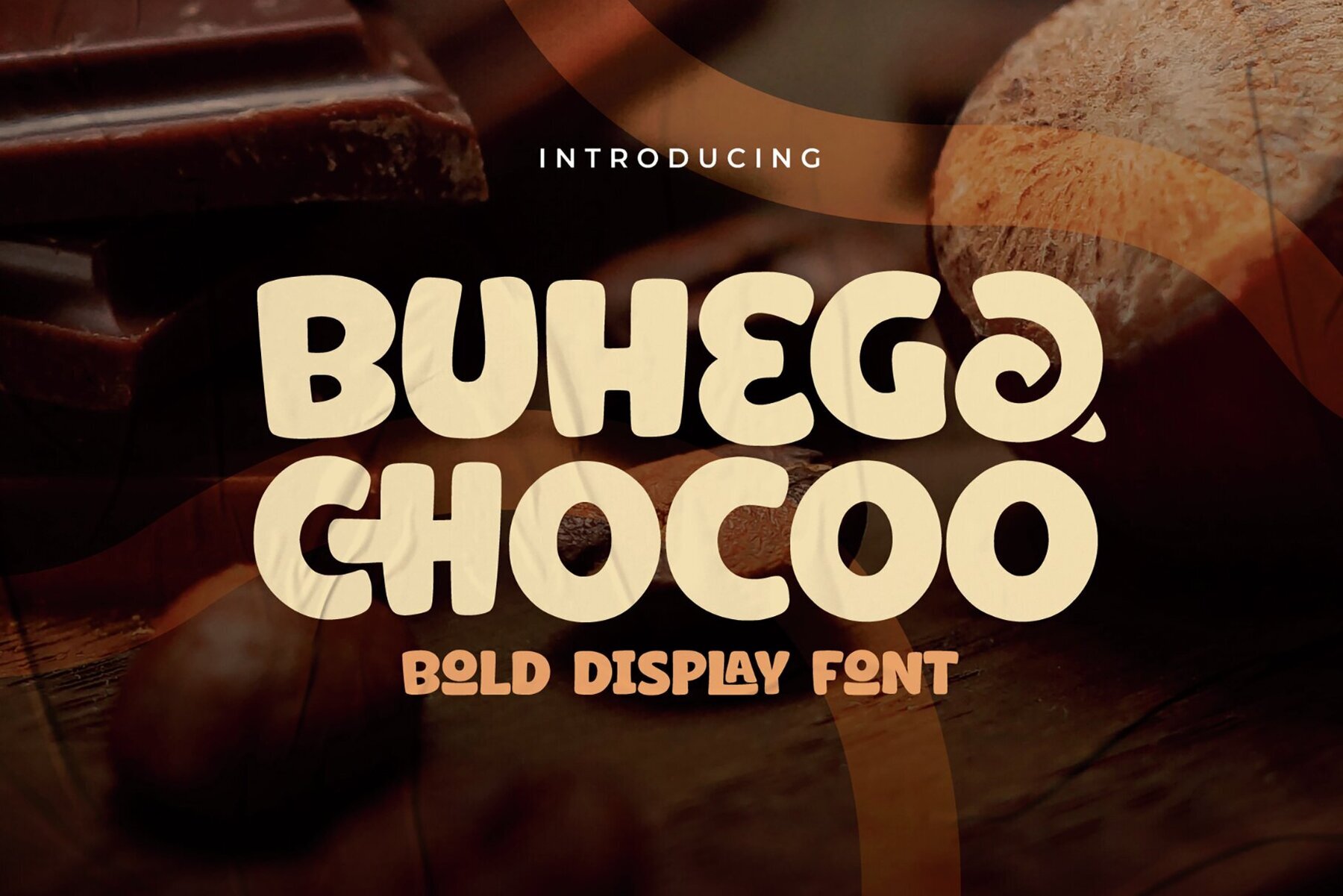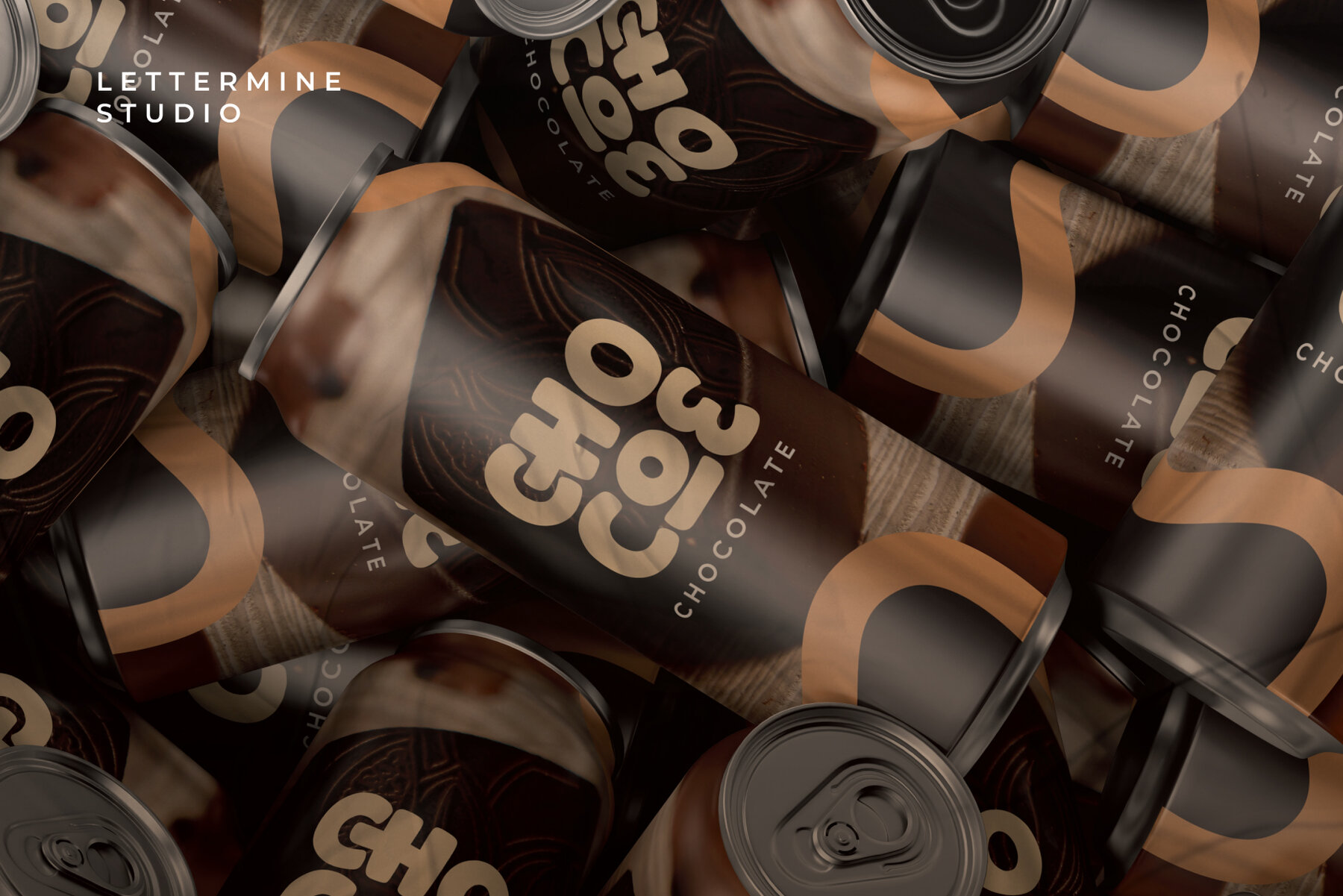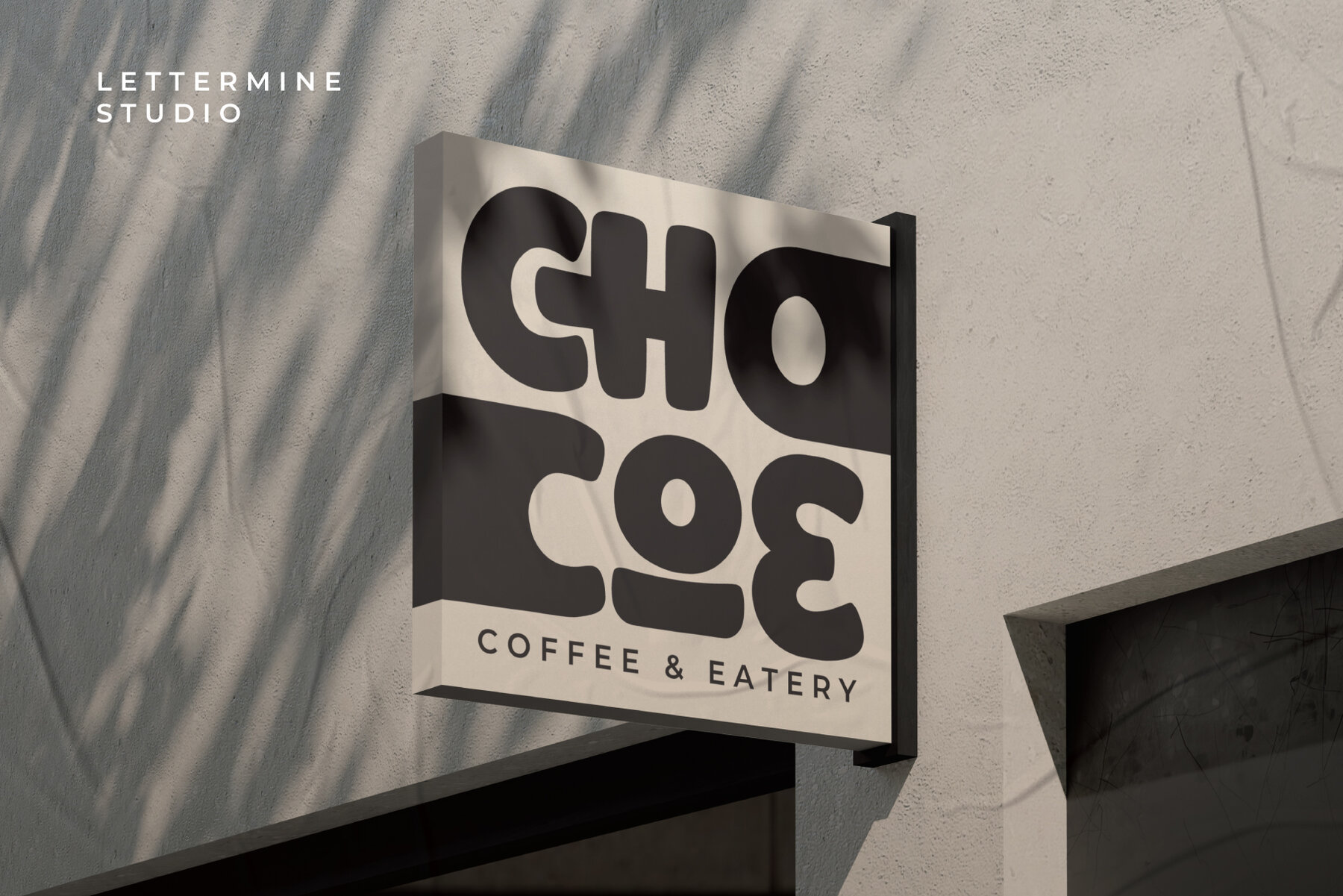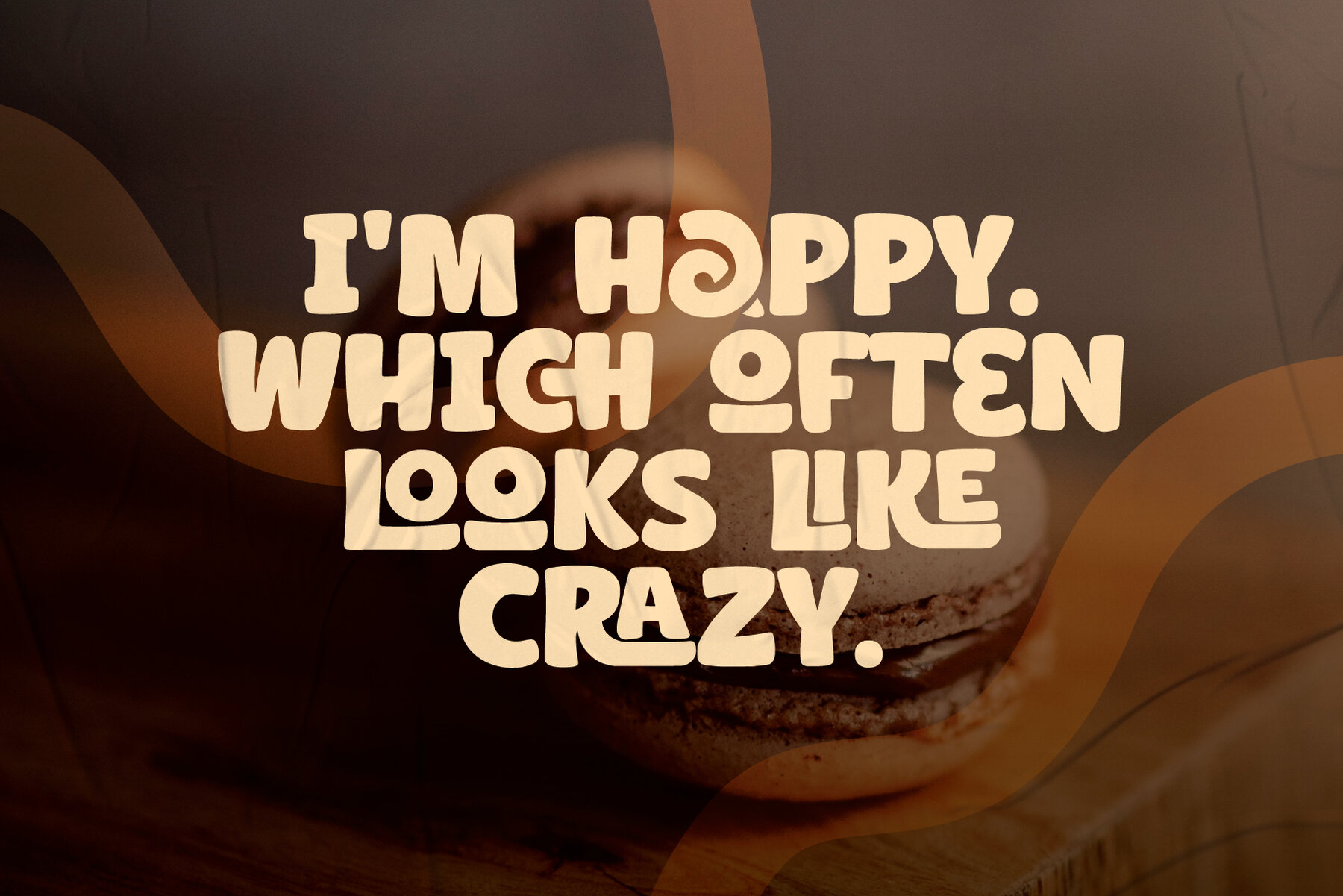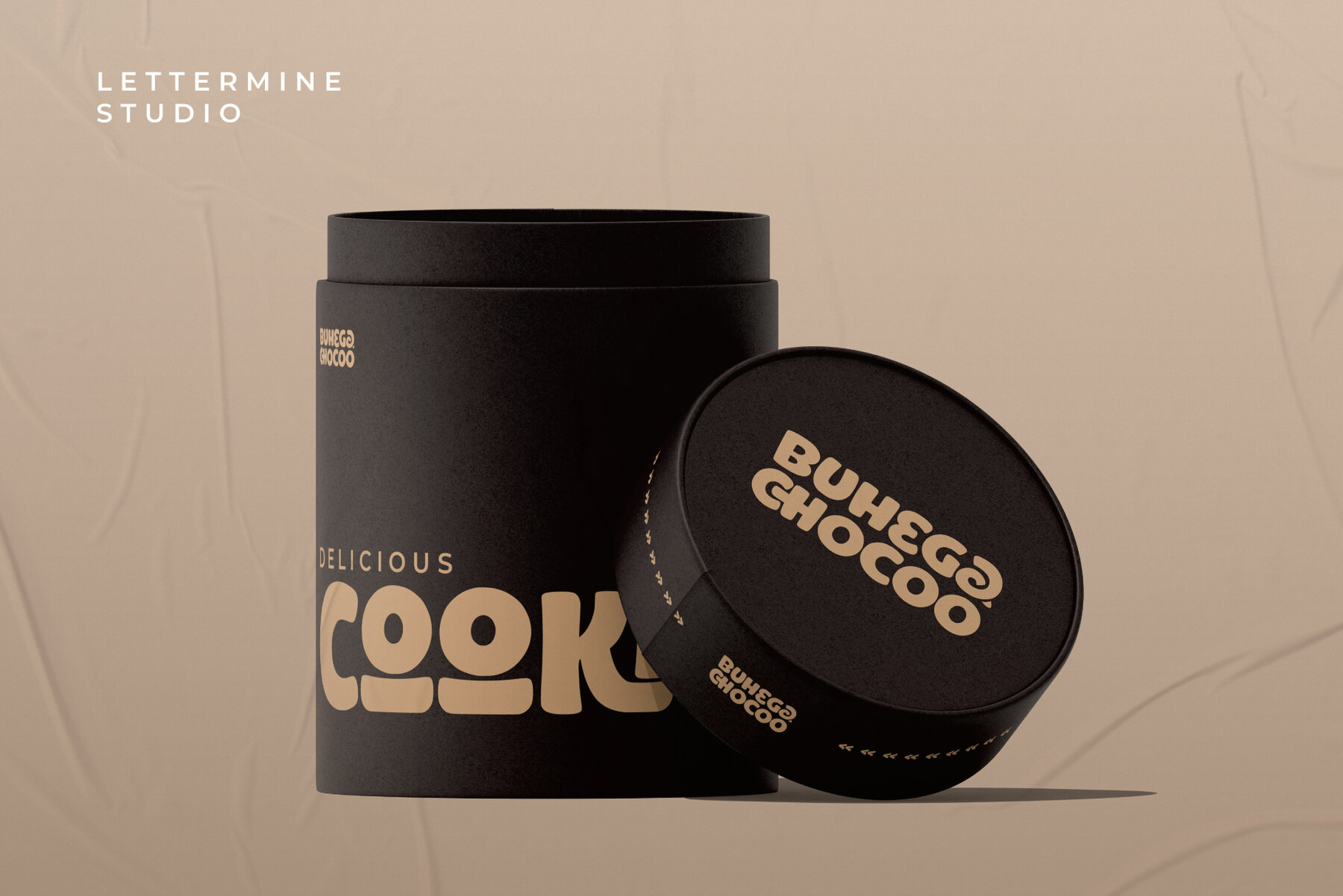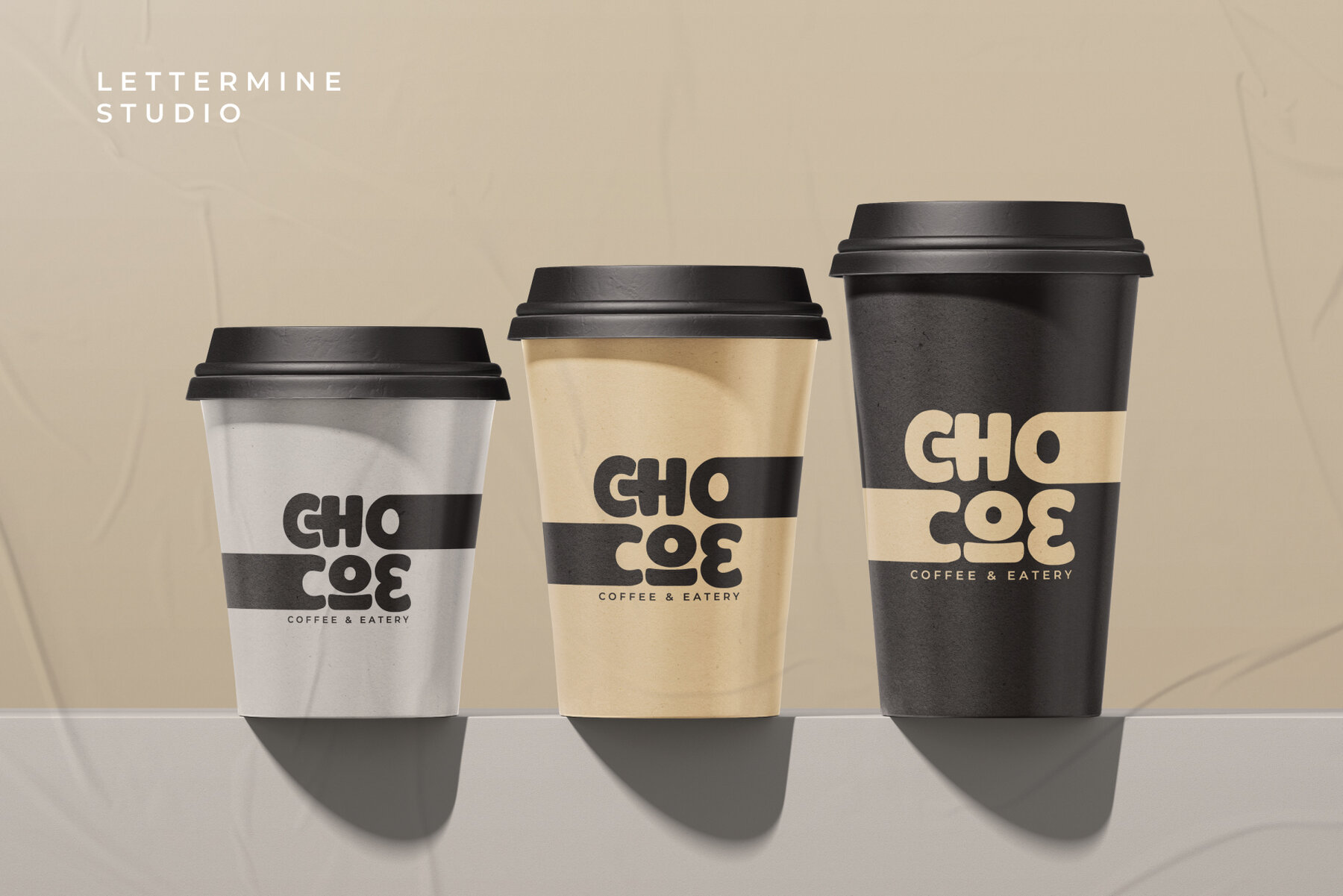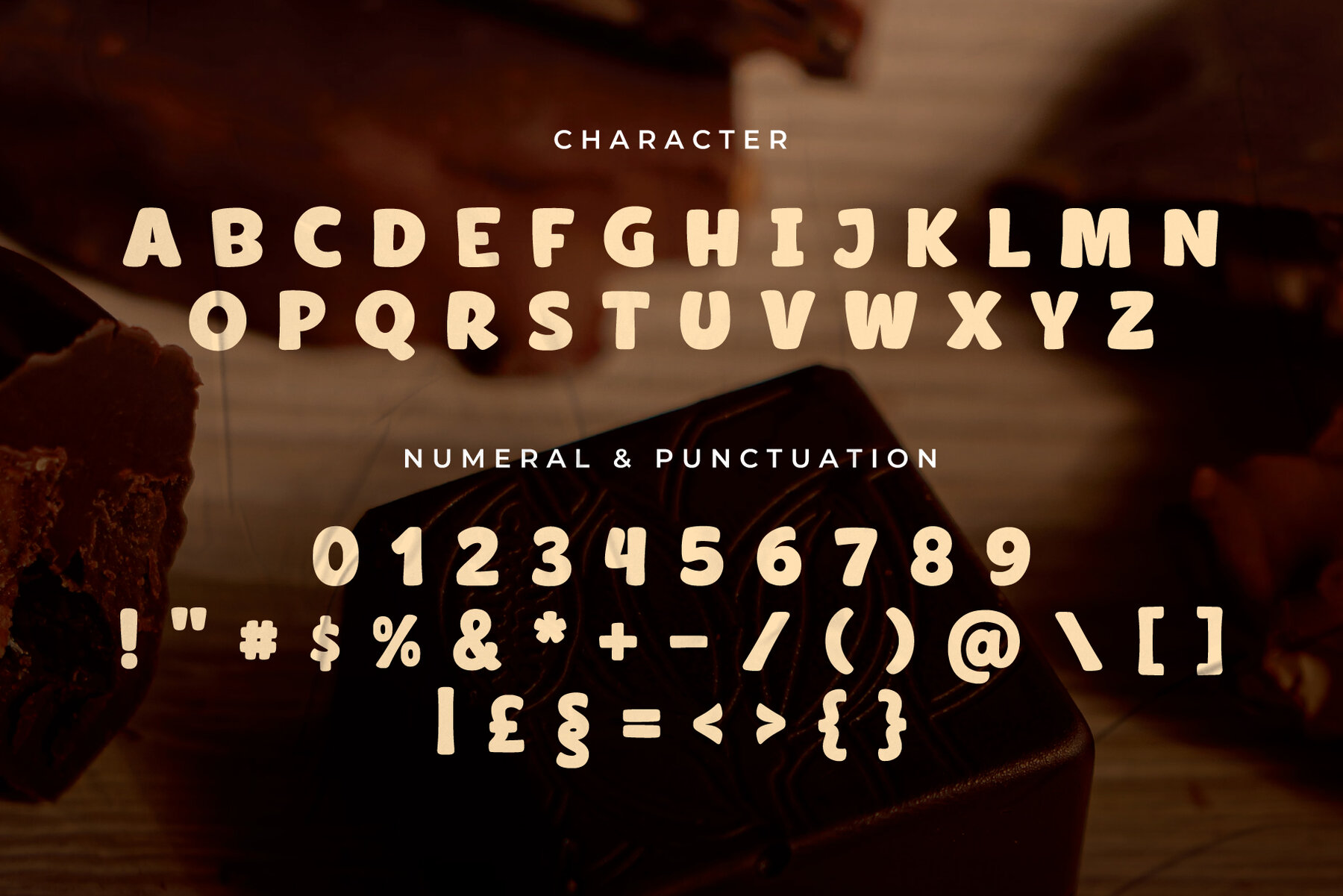
Buhega Chocoo Font
Buhega Chocoo
Buhega Chocoo is a bold display font that exudes liveliness and expressiveness, making it an excellent choice for projects needing a warm and playful touch. With its rounded and confident letterforms, it's perfect for capturing attention in headlines, posters, and branding materials that demand a standout effect. Add a cheerful and stylish element to your designs with Buhega Chocoo, turning any project into a visually engaging experience.Buhega Chocoo: A Bold Food Font Delight
Standout Features